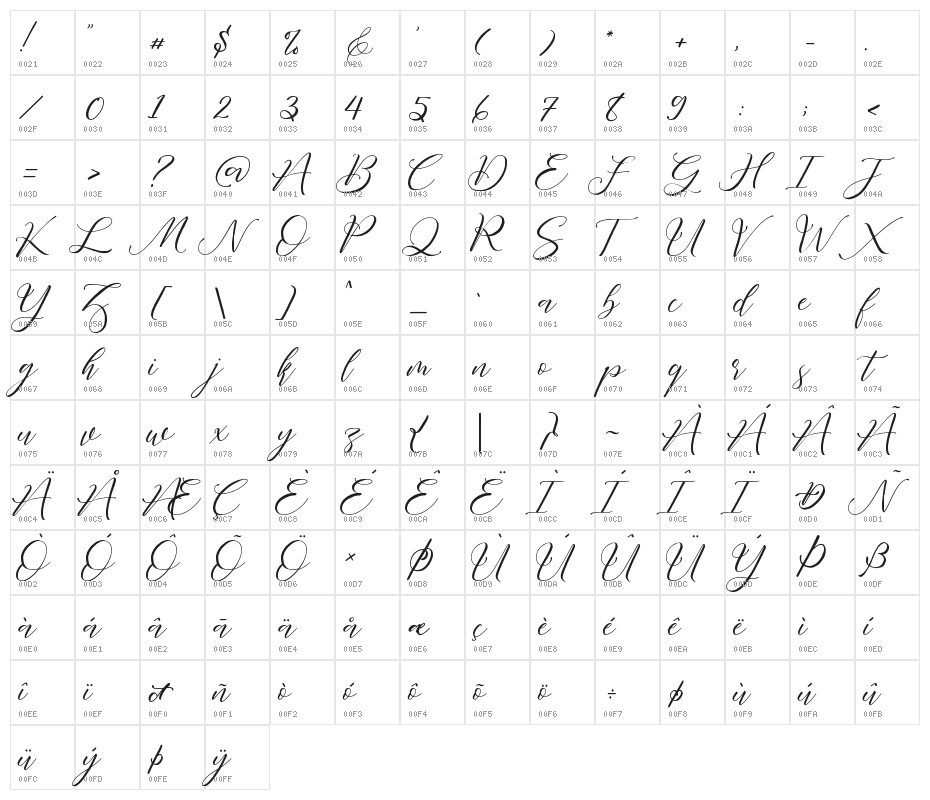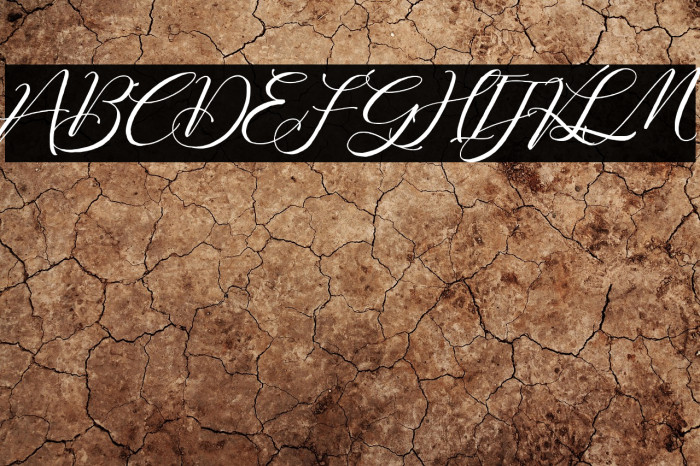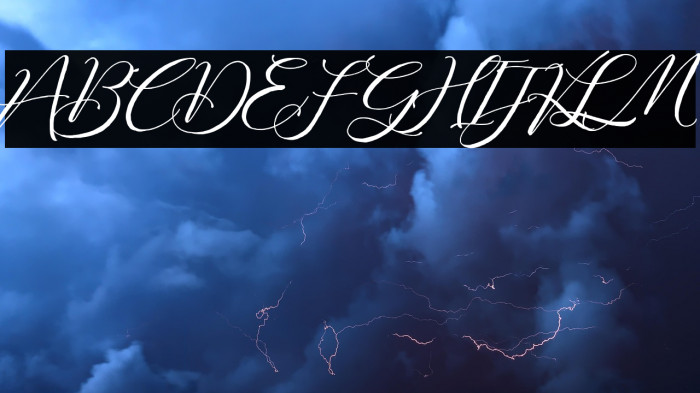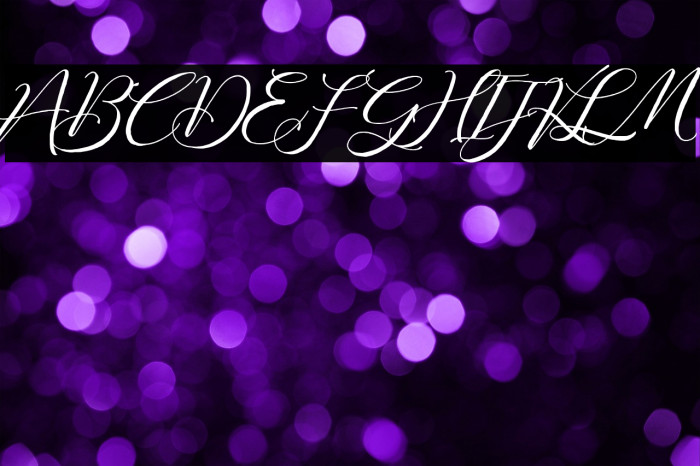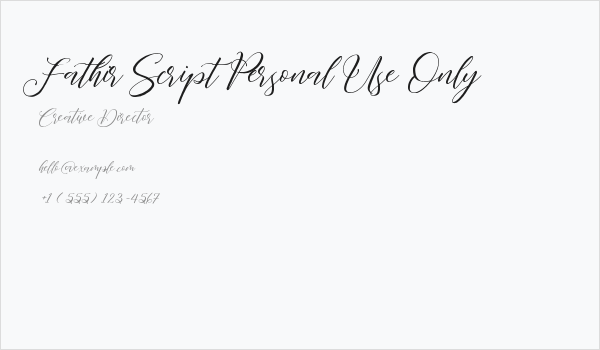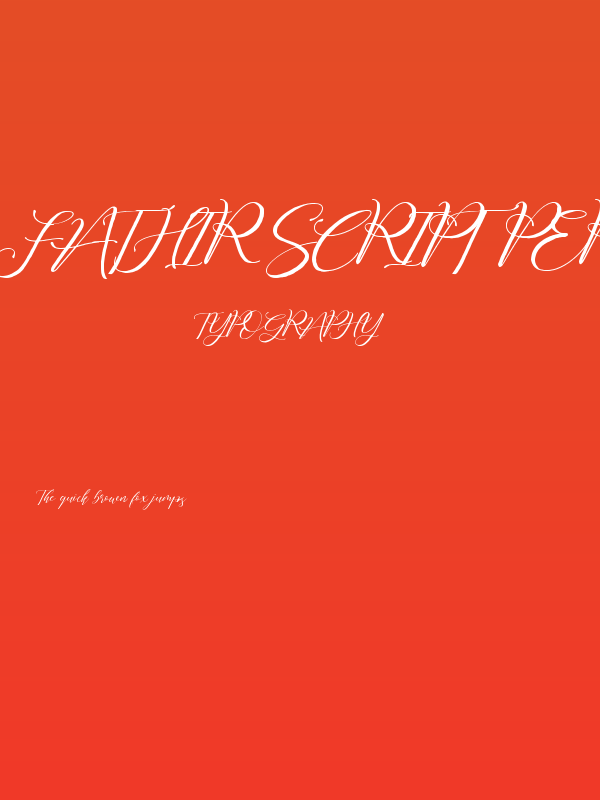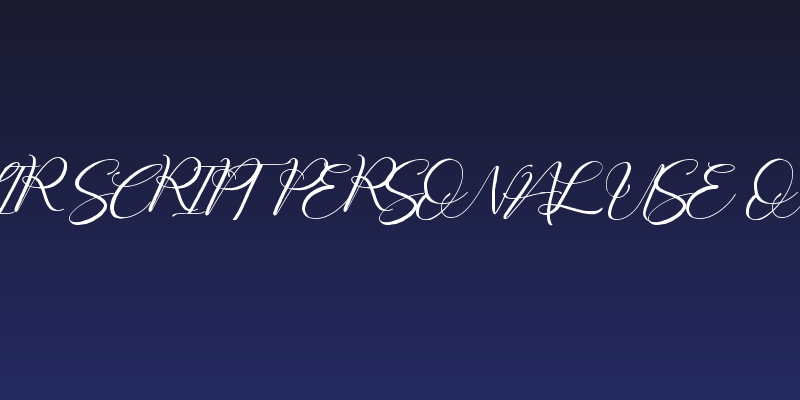
Fathir Script Personal Use Only Font
Fathir Script Personal Use Only Description
This font exudes elegance and sophistication with its fluid, cursive style. The letters are intricately designed with graceful loops and swashes, giving it a handwritten, artistic feel. The uppercase letters are particularly ornate, featuring elaborate flourishes that add a touch of drama and flair. The lowercase letters maintain a consistent flow, complementing the uppercase with their smooth, connected strokes. The numerals are stylishly crafted, maintaining the overall aesthetic of the font. Special characters are thoughtfully integrated, ensuring versatility in design applications. This font is perfect for projects that require a personal, elegant touch, such as invitations, branding, and decorative text.
| Overall Style | Elegant, Artistic |
| Proposed Projects | Ideal for wedding invitations, branding, greeting cards, and decorative text. |